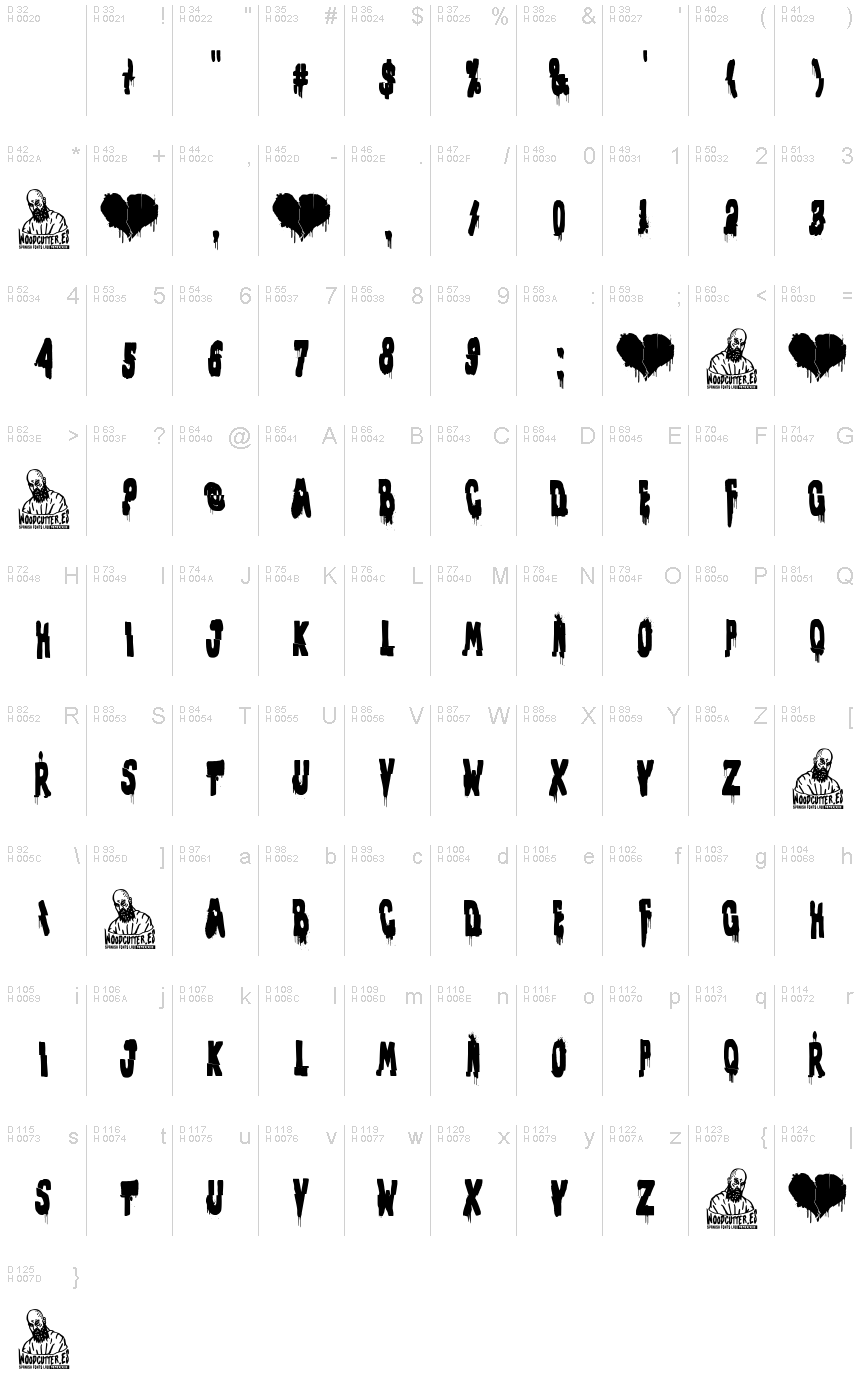
Broken Heart
"Broken Heart" - a striking display font that demands attention. Crafted by the talented Woodcutter, this font exudes a haunting, gothic allure. The bold, dripping letterforms evoke a sense of macabre elegance, their condensed silhouettes adding a sense of intensity and drama. The style is unapologetically scary, with a raw, textured quality that whispers of dark corners and twisted narratives.
This font would thrive in contexts that call for a distinct, statement-making presence - from horror-themed media and apparel to edgy, urban branding. Its bold, expressive nature makes it a captivating choice for headlines, posters, and cover art, where it can command the viewer's gaze and set the tone for a chilling, atmospheric experience. Broken Heart is a font that dares to be different, a typographic rebel that celebrates the beauty in the bizarre.